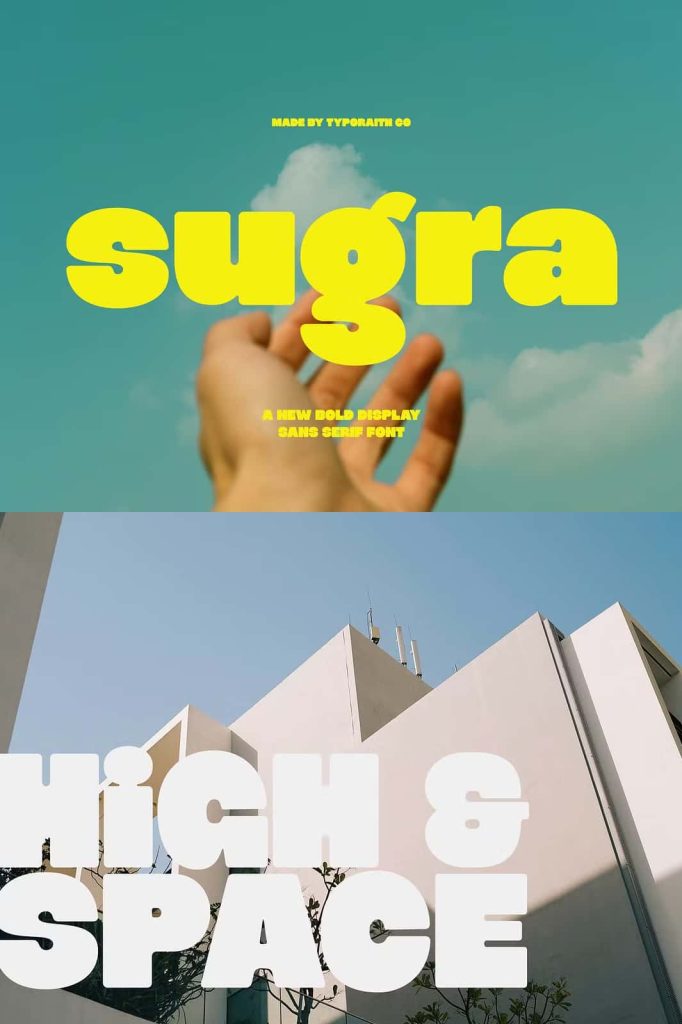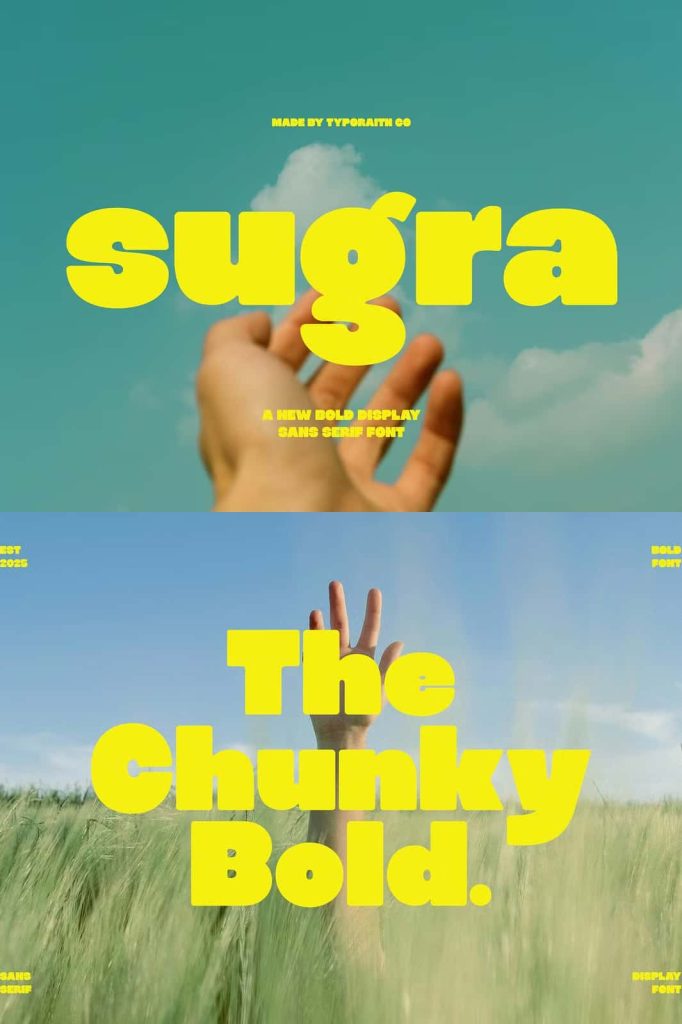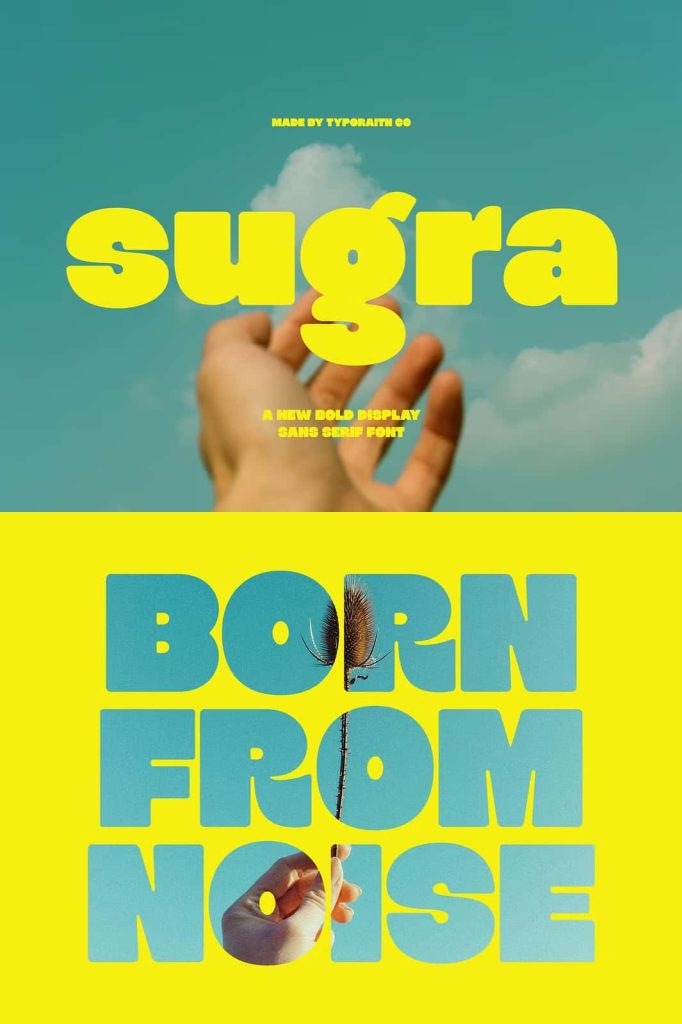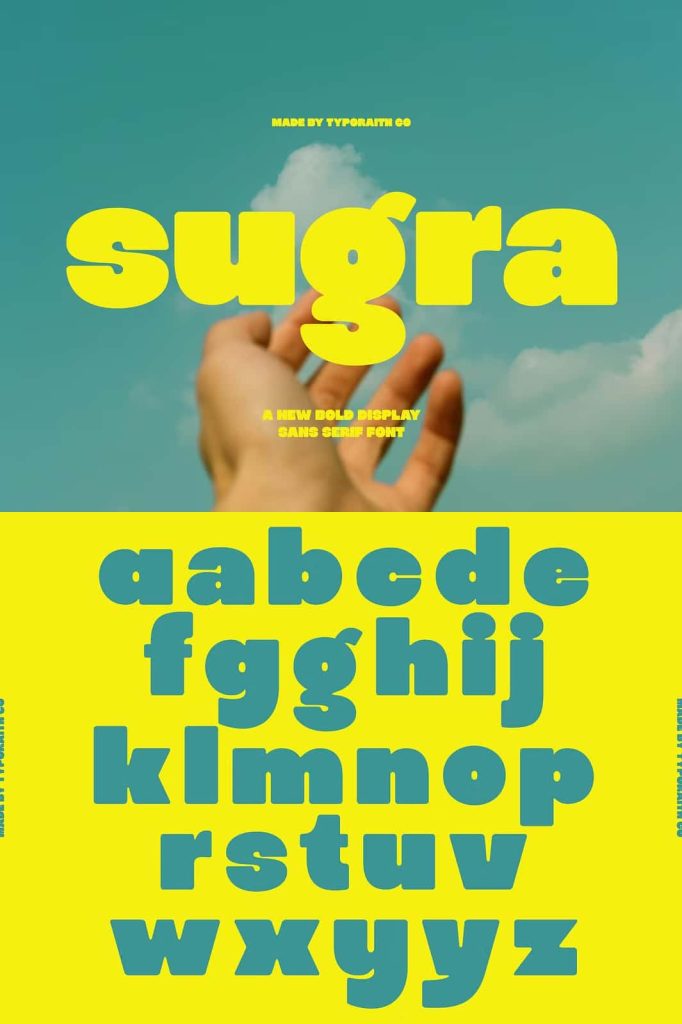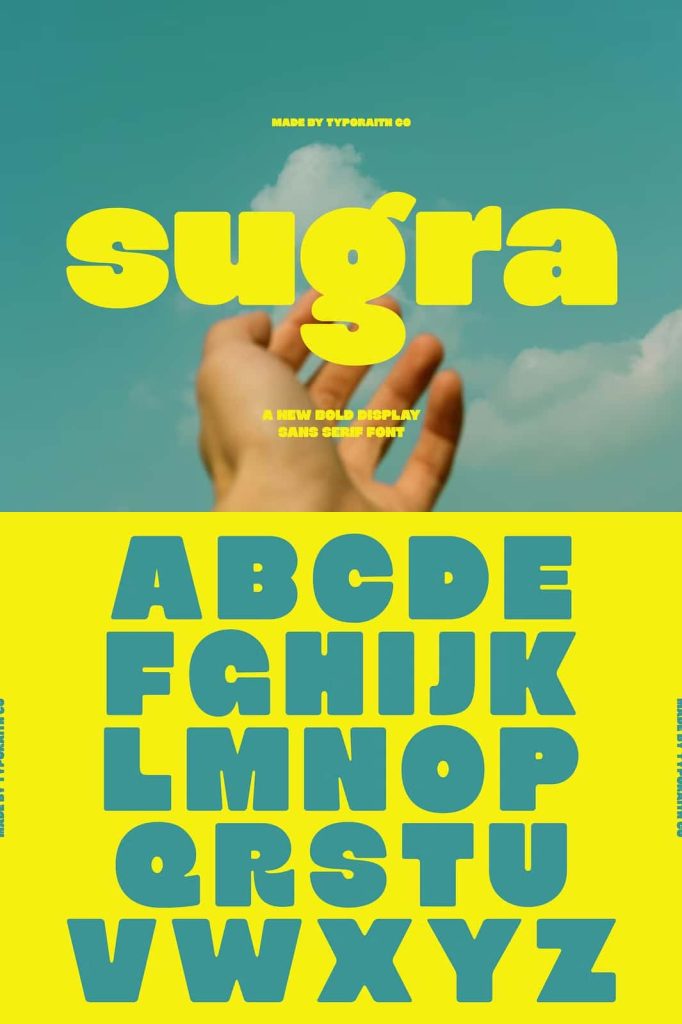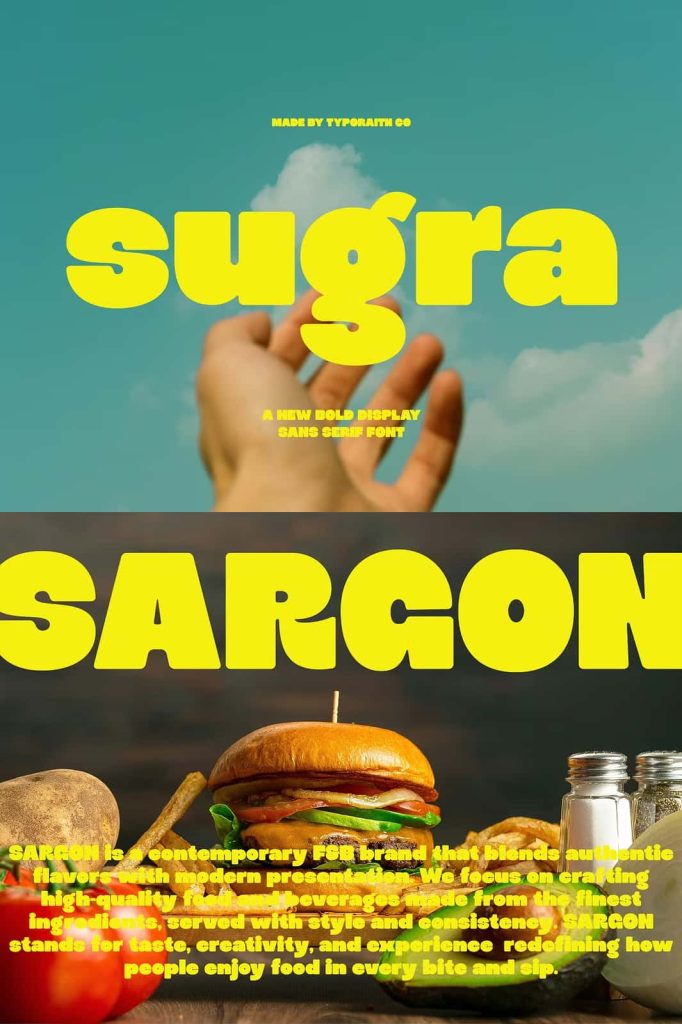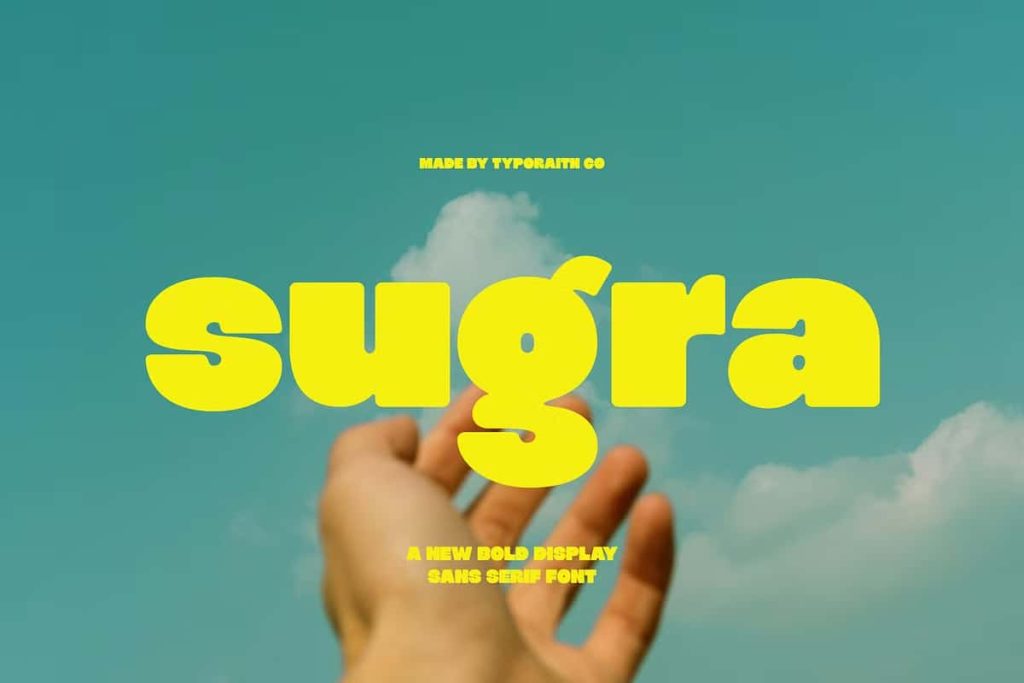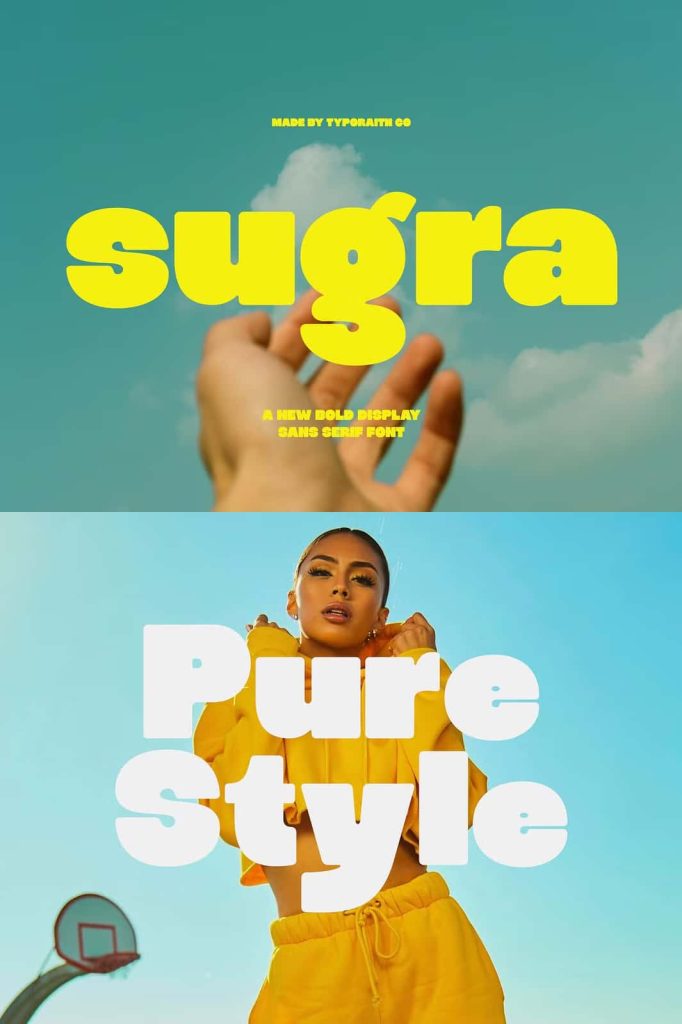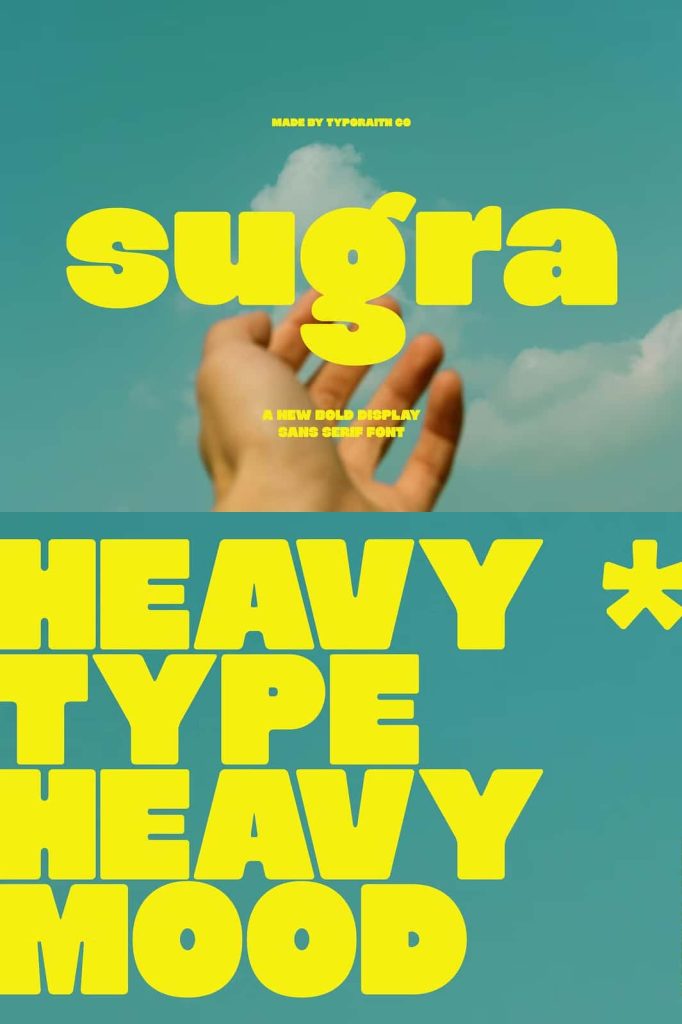
Sugra Chunky Sans Serif Font – A Bold and Playful Typeface for Modern Branding
Sugra is a bold chunky sans serif font designed to bring energy, confidence, and personality to creative projects. Combining strong geometric forms with soft rounded corners, this typeface creates the perfect balance between bold visual impact and approachable charm. Its playful curves and modern structure make it an excellent choice for designers who want typography that attracts attention while maintaining a friendly and welcoming appearance.
Whether you are creating eye-catching posters, memorable logos, product packaging, social media graphics, advertising campaigns, or complete brand identities, Sugra delivers a distinctive visual presence that helps designs stand out. Its versatile character allows it to work across both retro-inspired concepts and contemporary minimalist layouts, making it a valuable addition to any designer’s font collection.
Sugra is more than just a display font. It is a creative tool that helps communicate positivity, creativity, and confidence through typography. The font’s unique combination of softness and strength makes it suitable for businesses, creative professionals, startups, and brands looking to establish a strong yet approachable visual identity.
A Chunky Sans Serif Font with Strong Personality
Sugra embraces the growing demand for bold typography while introducing a softer and more inviting aesthetic. The thick letterforms immediately capture attention, making the font highly effective for headlines, promotional materials, and branding applications where visibility is essential.
Unlike many bold display fonts that can appear aggressive or overwhelming, Sugra maintains a friendly character through its rounded edges and smooth curves. This thoughtful design approach helps create a positive emotional response while preserving the font’s strong visual impact.
The result is a typeface that feels confident without being intimidating, allowing designers to create engaging visual experiences that appeal to a broad audience.
Rounded Corners for a Friendly and Approachable Look
One of Sugra’s most recognizable features is its rounded corner construction. These smooth edges soften the appearance of the bold letterforms and introduce a welcoming personality that distinguishes the font from traditional geometric sans serif designs.
The rounded shapes help create a sense of warmth and accessibility, making the font particularly effective for brands that want to appear friendly, modern, and customer-focused. This feature also contributes to the font’s versatility, allowing it to adapt to a wide range of design styles and industries.
From consumer products and creative businesses to educational projects and lifestyle brands, Sugra’s approachable aesthetic helps build stronger connections with audiences.
Key Features of Sugra
- Bold chunky sans serif design
- Rounded corners and smooth curves
- Friendly and approachable personality
- Strong visual impact for headlines and branding
- Excellent readability in large display sizes
- Suitable for retro and modern design styles
- Versatile for both print and digital applications
Perfect for Posters and Eye-Catching Headlines
Strong typography is essential for effective communication, and Sugra excels in projects that demand immediate attention. Its thick letterforms and balanced proportions make headlines highly visible while maintaining clarity and readability.
Designers can use Sugra for event posters, promotional campaigns, advertisements, banners, and marketing materials where bold messaging plays a central role. The font’s playful character adds energy to designs while ensuring that important information remains easy to read.
Whether displayed on large-format print materials or digital platforms, Sugra consistently delivers impressive visual results that help messages stand out in crowded environments.
Create Memorable Logos and Brand Identities
Typography often serves as the foundation of a successful brand identity, and Sugra provides the personality needed to create memorable visual branding. Its bold appearance helps businesses establish strong recognition, while its friendly characteristics make brands feel more approachable and relatable.
The font works exceptionally well for startups, lifestyle brands, food businesses, creative agencies, retail stores, children’s products, and modern consumer brands. Its distinctive style allows logos and wordmarks to remain memorable while maintaining versatility across different applications.
By combining confidence with warmth, Sugra helps brands communicate professionalism without sacrificing personality.
Excellent for Packaging and Product Design
Packaging design often relies on typography to attract attention and communicate brand values. Sugra’s bold and playful appearance makes it an excellent choice for product packaging that needs to stand out on shelves or online marketplaces.
Its friendly personality works particularly well for food products, beverages, beauty brands, lifestyle goods, handmade products, and creative merchandise. The font helps create packaging that feels inviting and modern while reinforcing a strong brand identity.
The clean structure of the typeface ensures that product names and key messaging remain clear and impactful, contributing to a more effective customer experience.
Ideal for Modern Branding and Advertising
Sugra adapts seamlessly to modern branding strategies that prioritize authenticity, engagement, and visual distinction. The font’s combination of boldness and friendliness makes it highly effective for advertising campaigns, social media marketing, digital promotions, and brand storytelling.
Marketing professionals can use Sugra to create compelling advertisements that capture attention and communicate messages clearly. Its contemporary design helps brands maintain a fresh and relevant appearance while supporting consistent visual communication.
This versatility allows Sugra to perform effectively across multiple marketing channels, from print advertisements to social media content and digital campaigns.
Perfect for Retro and Contemporary Design Styles
One of Sugra’s greatest strengths is its ability to work across different visual styles. Designers seeking a nostalgic retro aesthetic can pair the font with vintage-inspired color palettes, illustrations, and layouts to create designs that evoke classic advertising and packaging.
At the same time, Sugra integrates beautifully into modern minimalist designs where bold typography serves as the primary visual element. Its clean structure and balanced proportions allow it to function effectively in contemporary compositions without feeling overly decorative.
This adaptability makes Sugra a versatile solution for creative professionals working on diverse projects and branding requirements.
Popular Applications for Sugra
- Logo and brand identity design
- Posters and event promotions
- Advertising campaigns
- Product packaging and labels
- Website headers and landing pages
- Retail and consumer branding
- Children’s products and educational materials
- Merchandise and apparel design
- Marketing and promotional materials
Designed to Communicate Positivity and Confidence
Sugra was created to inspire positive visual communication. Its bold letterforms convey confidence and strength, while the rounded shapes introduce warmth and friendliness. This combination allows brands and designers to communicate powerful messages without appearing overly serious or formal.
The typeface encourages creativity and helps establish emotional connections with audiences. Its approachable nature makes it suitable for businesses and projects that want to project optimism, innovation, and inclusivity.
Whether used in branding, advertising, packaging, or digital content, Sugra consistently delivers a positive and engaging visual experience.
Why Choose Sugra Chunky Sans Serif Font?
Sugra stands out as a bold and versatile sans serif font that successfully combines visual strength with approachable design. Its chunky letterforms, rounded corners, and playful curves create typography that feels energetic, modern, and memorable.
From branding and packaging to posters, social media graphics, and advertising campaigns, Sugra offers the flexibility needed to support a wide range of creative projects. Its ability to adapt to both retro-inspired aesthetics and contemporary design trends makes it an invaluable tool for designers seeking impactful and versatile typography.
For creative professionals looking for a font that delivers personality, readability, and strong visual appeal, Sugra is an outstanding choice. Its unique blend of boldness and friendliness helps transform ordinary designs into engaging experiences that capture attention and leave a lasting impression.